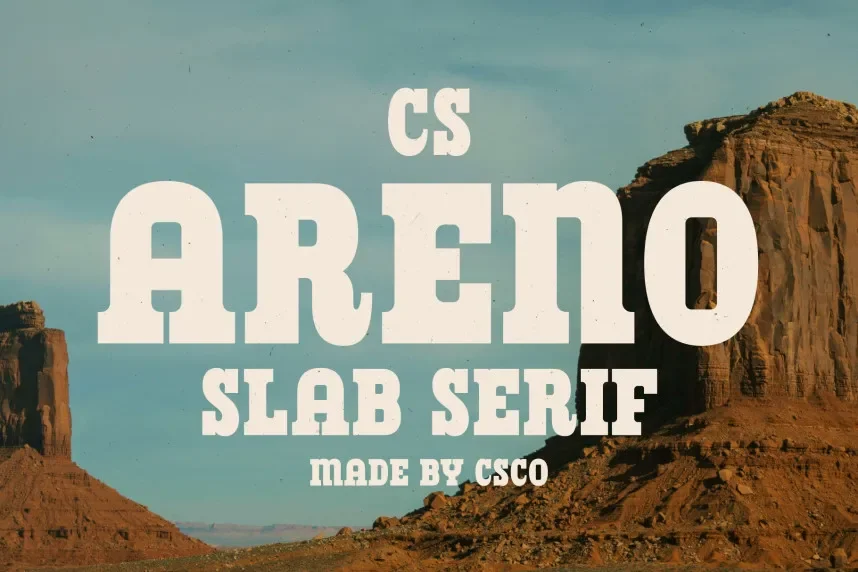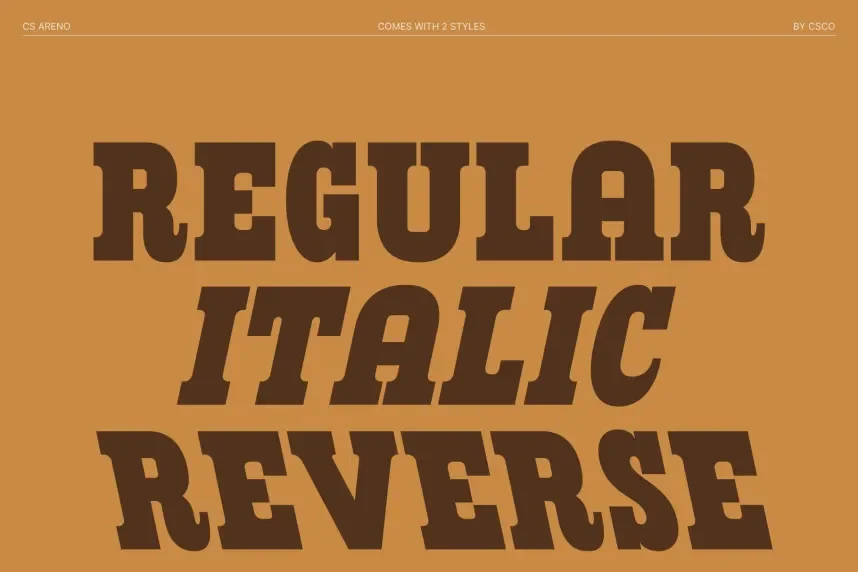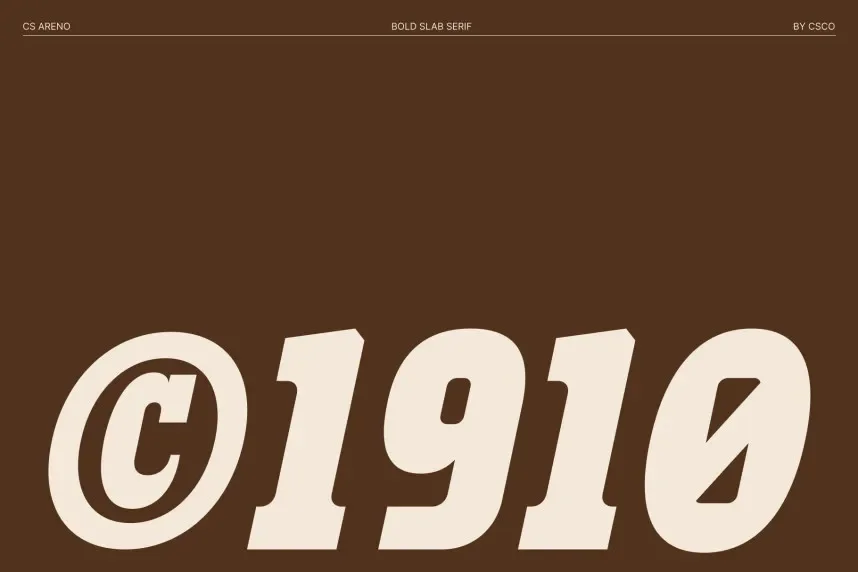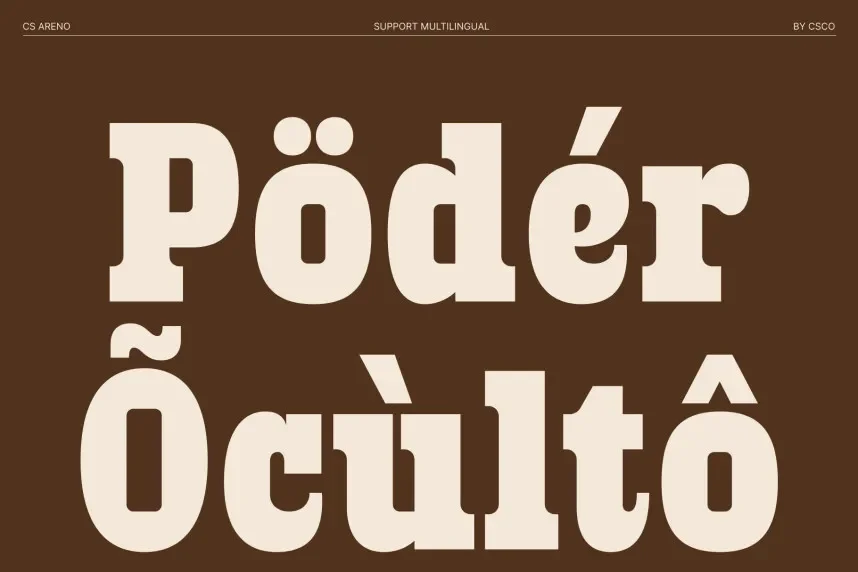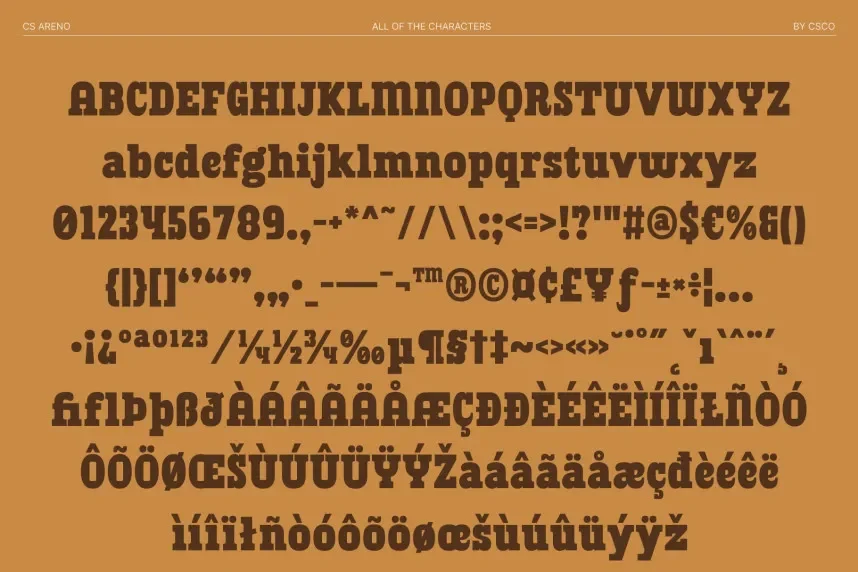
CS Areno Font is a clean, sans-serif typeface that combines modern design with high readability. Its straight lines and balanced proportions make it suitable for a wide range of design applications, including branding, web design, and print projects. The simplicity of CS Areno ensures clarity, even at smaller sizes.